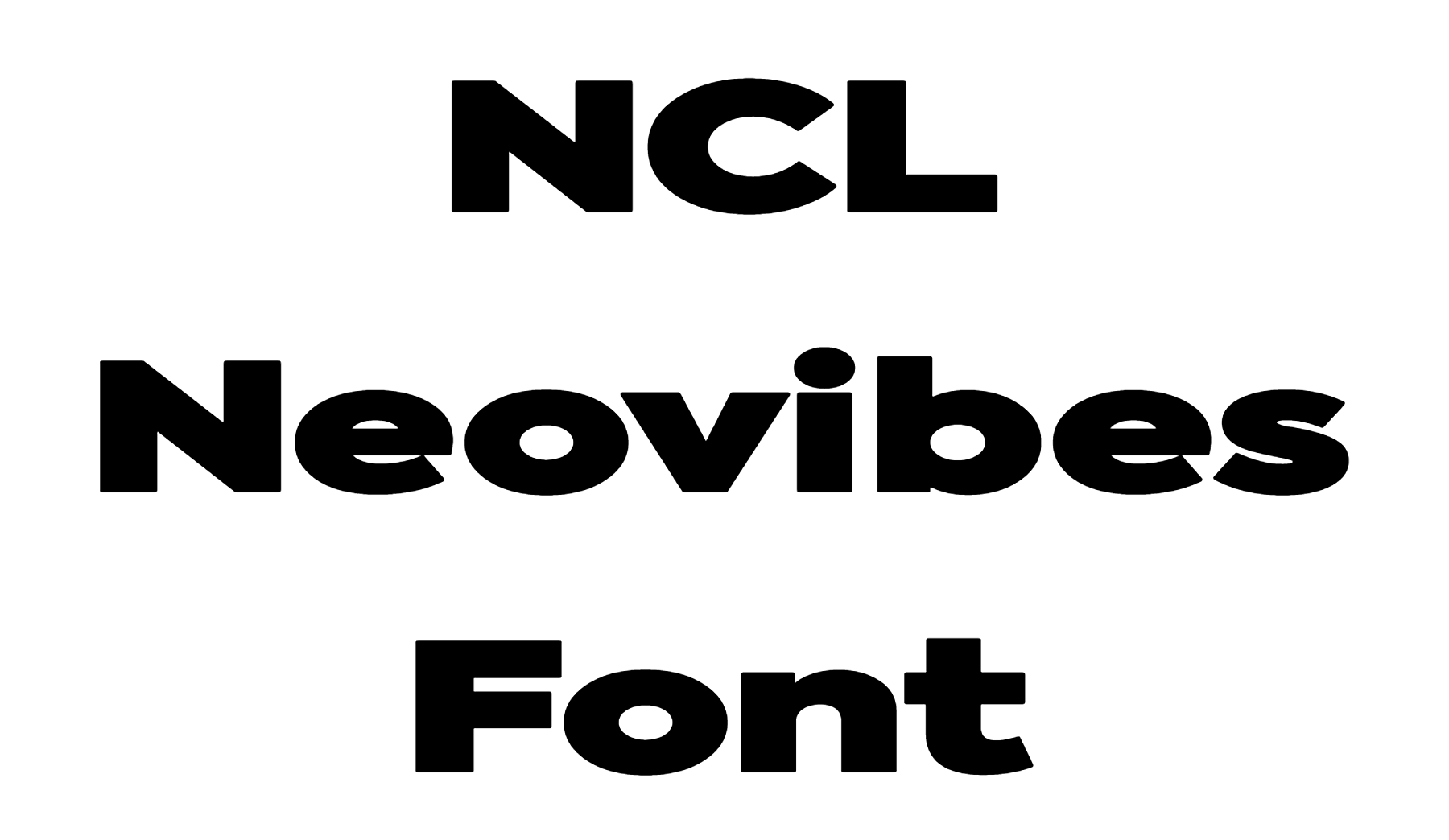
NCL Neovibes
NCL Neovibes is a sans serif font designed by Enxyclo Studio (2023). Simple, open letter shapes keep it easy to read at almost any size, from app buttons to big headlines. It's a free download, and you can try it with your own text in the preview above first.
- Designer: Enxyclo Studio
What You Can Type With NCL Neovibes
NCL Neovibes covers the full alphabet in upper and lowercase, plus all ten numbers, so you can set names, dates and prices without switching fonts. Everyday marks like &, !, ? and @ are there too. Thanks to its accented letters, it also works for Spanish, French, Portuguese and Italian, not just English.
Where NCL Neovibes Works Best
Designers usually reach for fonts like NCL Neovibes when they're making websites, app screens and clean logos. Its lowercase letters are tall compared to the capitals, which keeps it readable at smaller sizes. It works for headings and body text alike. If the download has several weights, use a heavier one for titles and a lighter one for paragraphs.
Does NCL Neovibes support accented letters?
Yes. NCL Neovibes includes the accented letters needed for Spanish, French, Portuguese and Italian, so it works for more than just English.